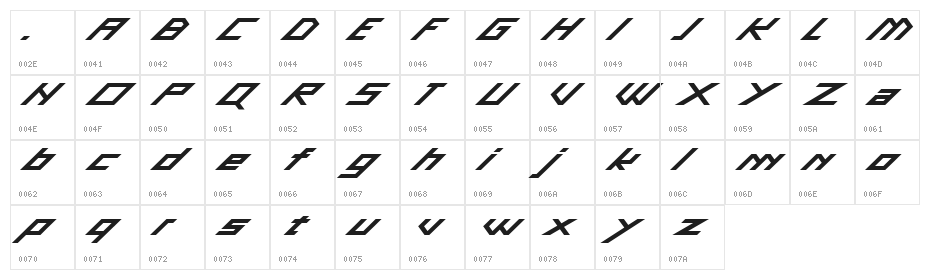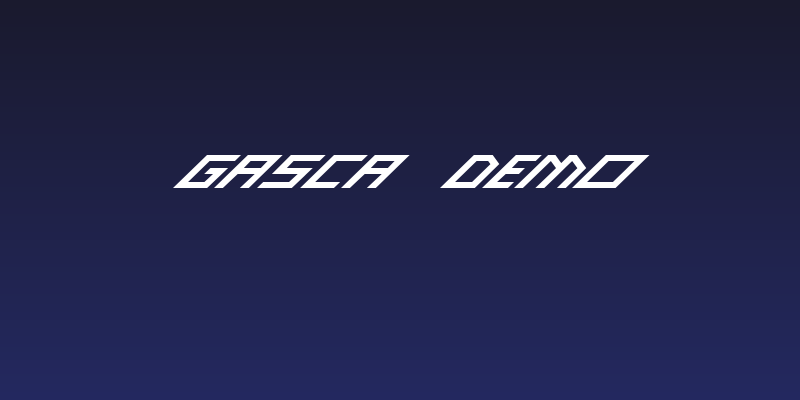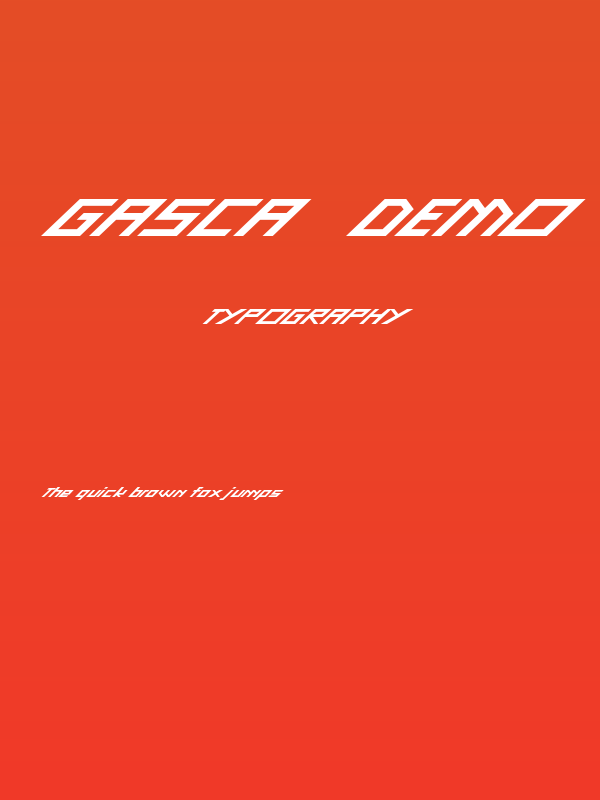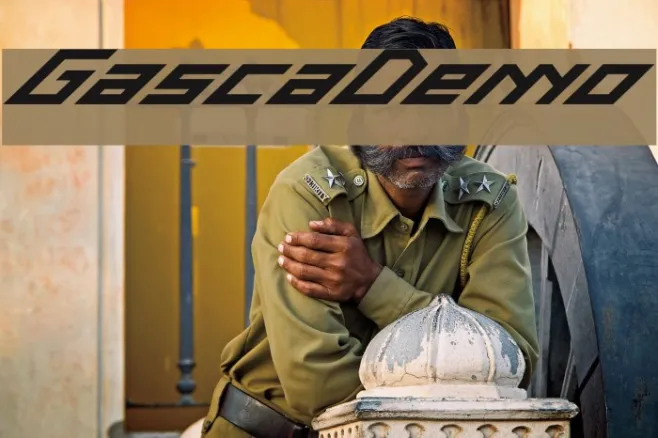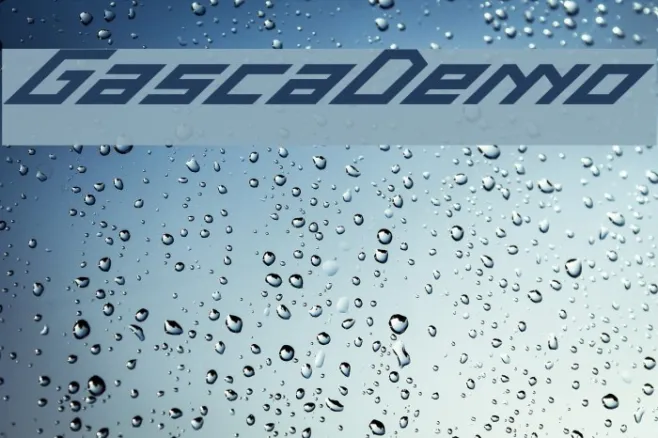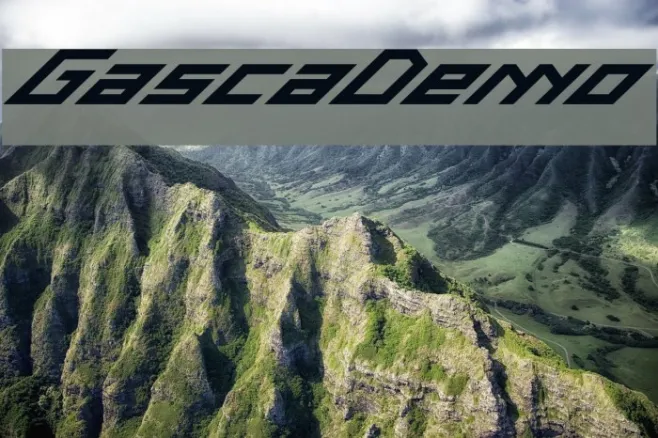
Gasca-Demo Font
Gasca-Demo Description
This font features a bold and dynamic design with a futuristic and angular aesthetic. The characters are sharply defined with a consistent slant, giving them a sense of motion and speed. The uppercase and lowercase letters maintain a uniform style, with each character exhibiting a geometric structure that emphasizes sharp angles and straight lines. The numbers and special characters are designed to match the overall angular theme, ensuring a cohesive look across all glyphs. This font is particularly striking due to its bold weight and the strong visual impact it creates.
| Proposed Projects | Ideal for projects that require a modern and edgy look, such as technology branding, sports team logos, or sci-fi themed designs. |